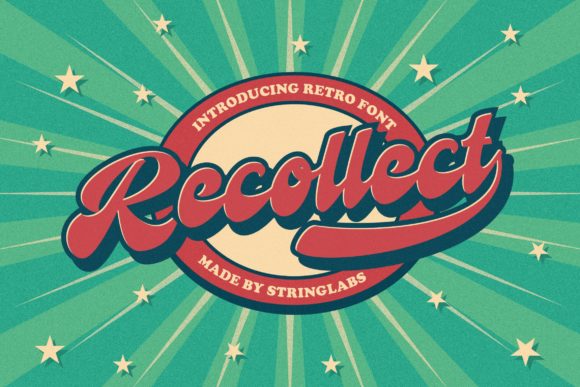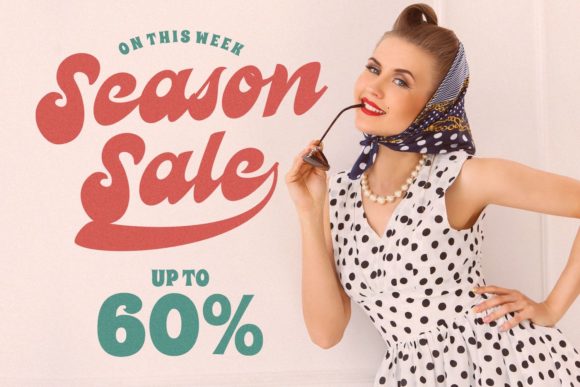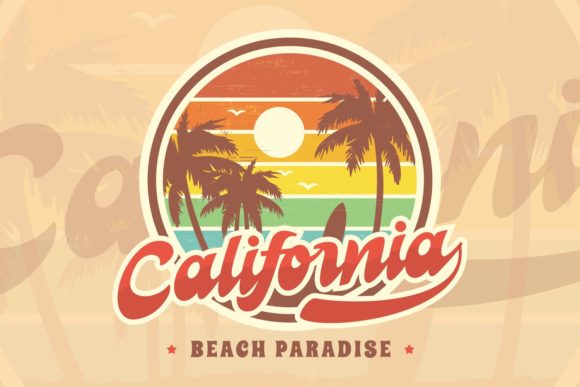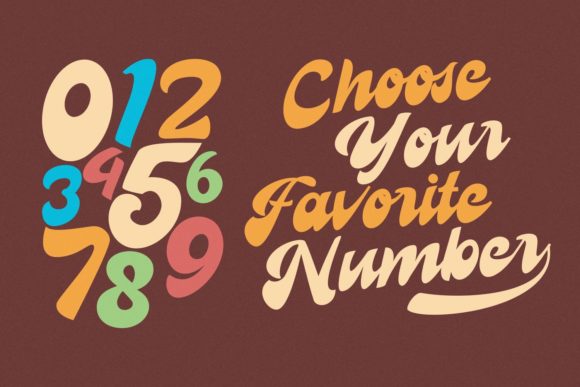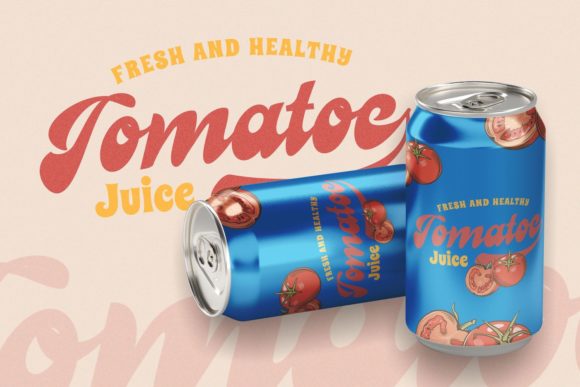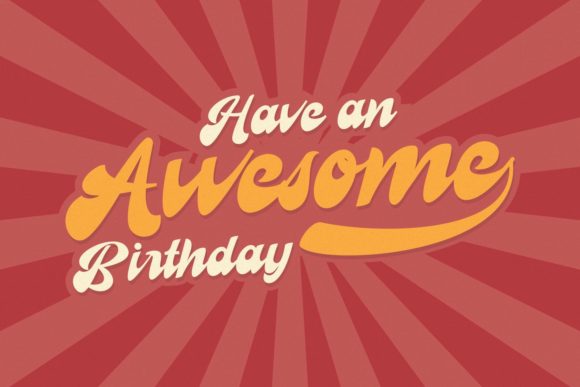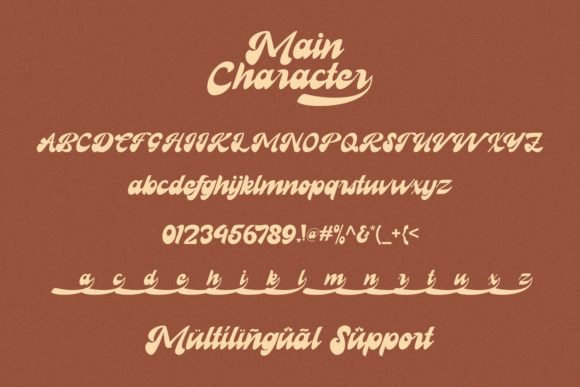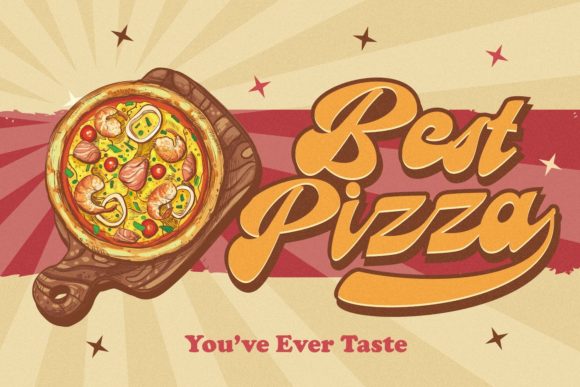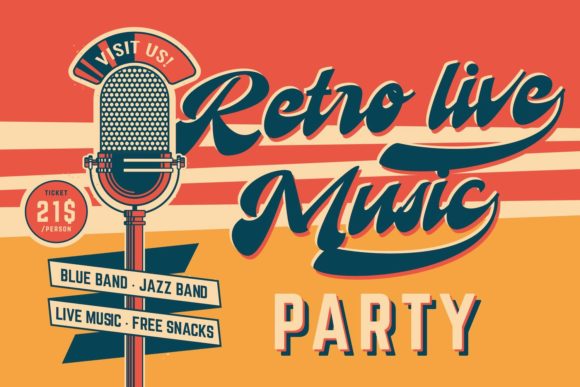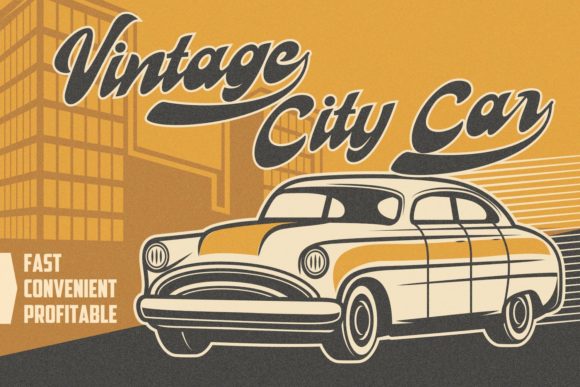
Recollet Font
About Recollet Font
Recollet is a bold script with a vintage style. Use it to add that special retro touch to any design idea you can think of!